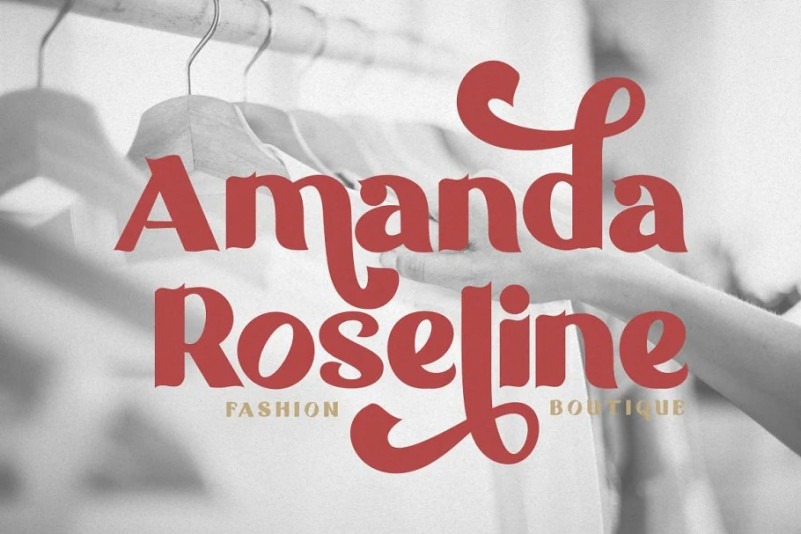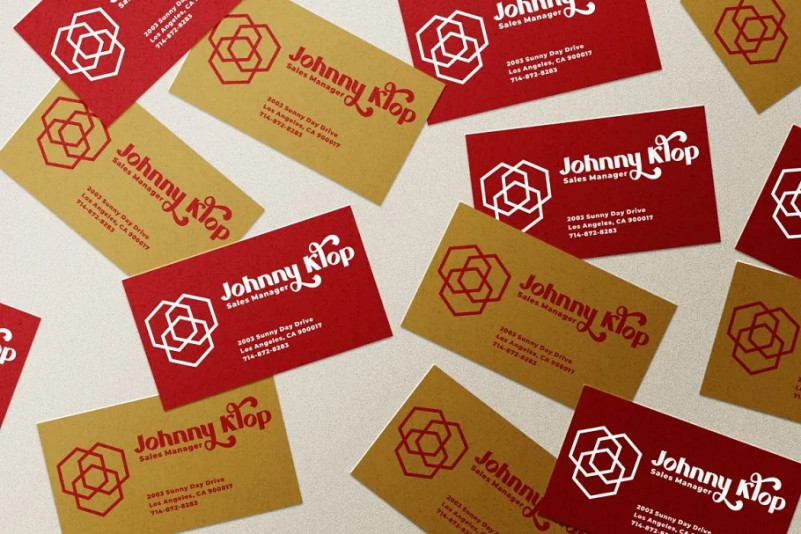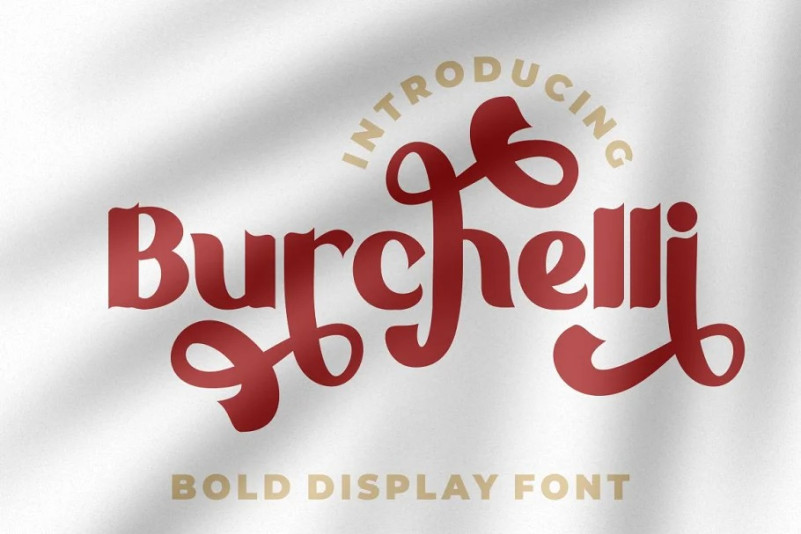
Burchelli Font
Burchelli – Bold Display Sans Font. Burchelli font makes for more fun, trendy and more lively. Burchelli is inspired by the extra bold font style and display sans. Burchelli has a surprise from alternate of sans serif that will make your work even more beautiful.
Burchelli is perfect for a professional touch which makes it even more unique display and classic themes. But burchelli is also suitable for logos, branding, greeting cards, invitation cards, advertisements, titles, healines, book titles, stickers, packaging, quotes, posters, t-shirts/apparel, billboards and others.